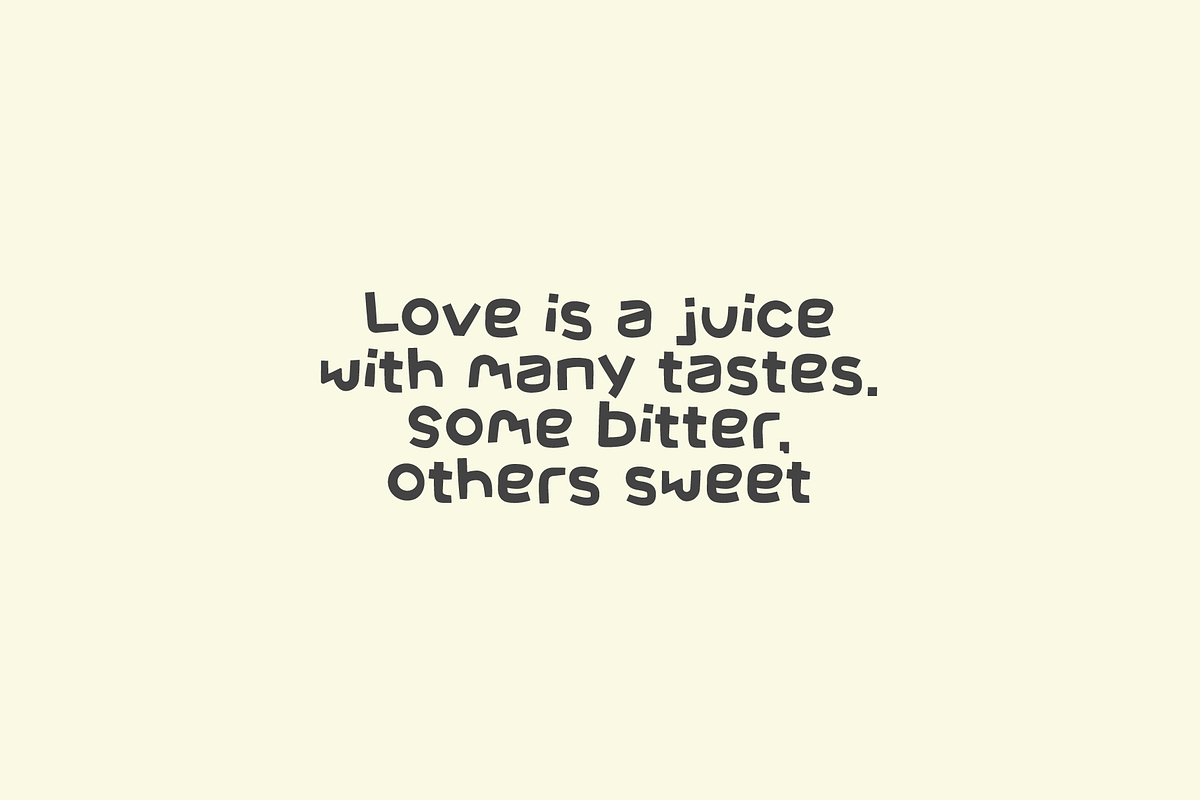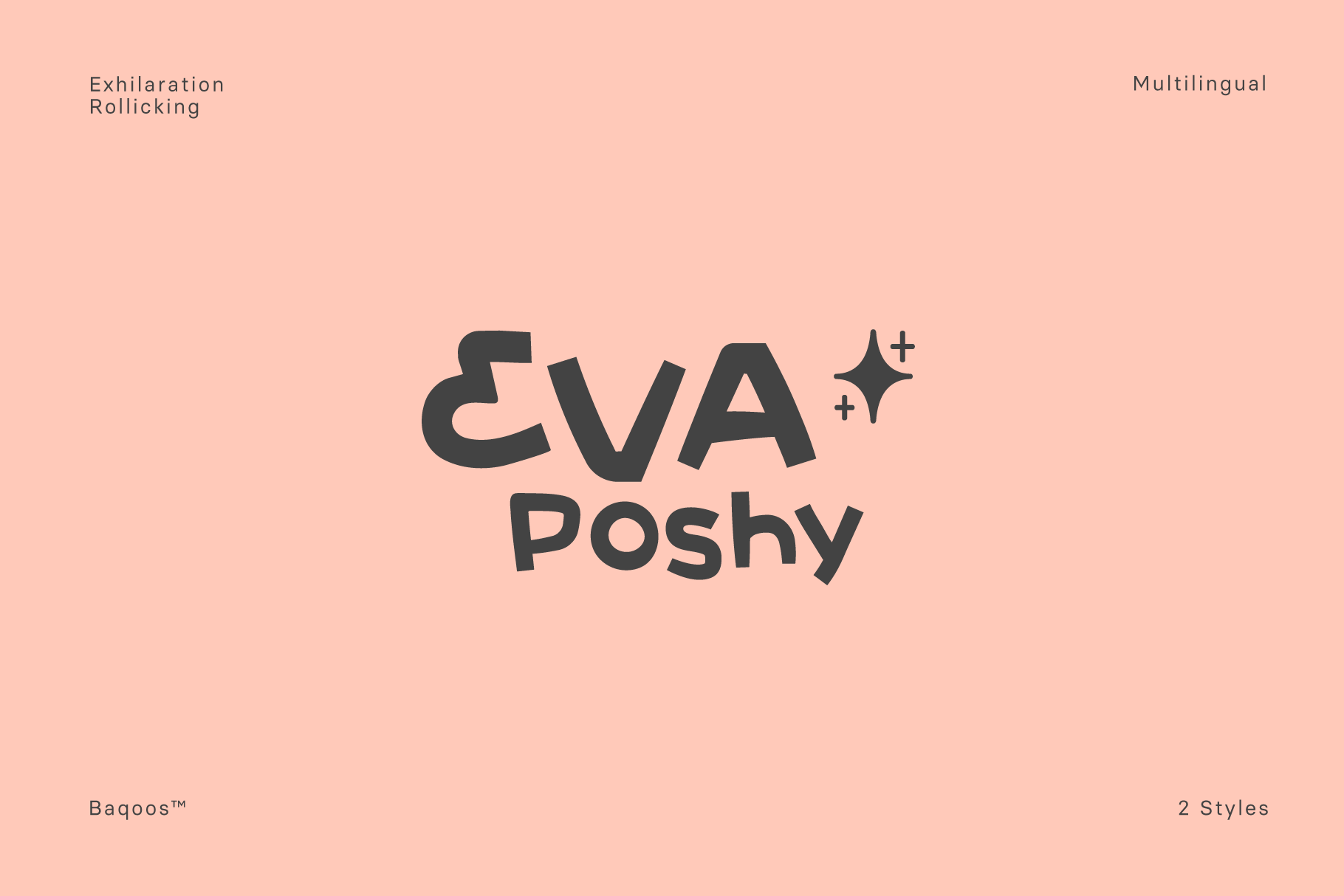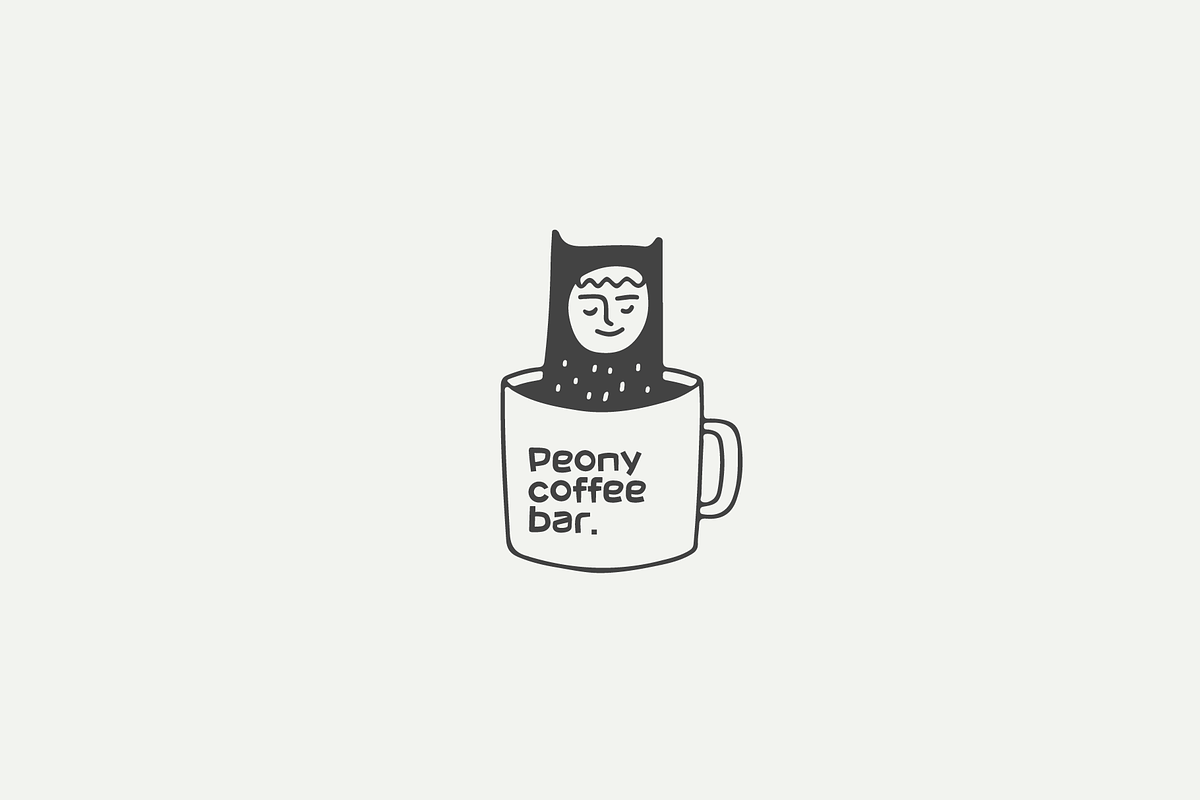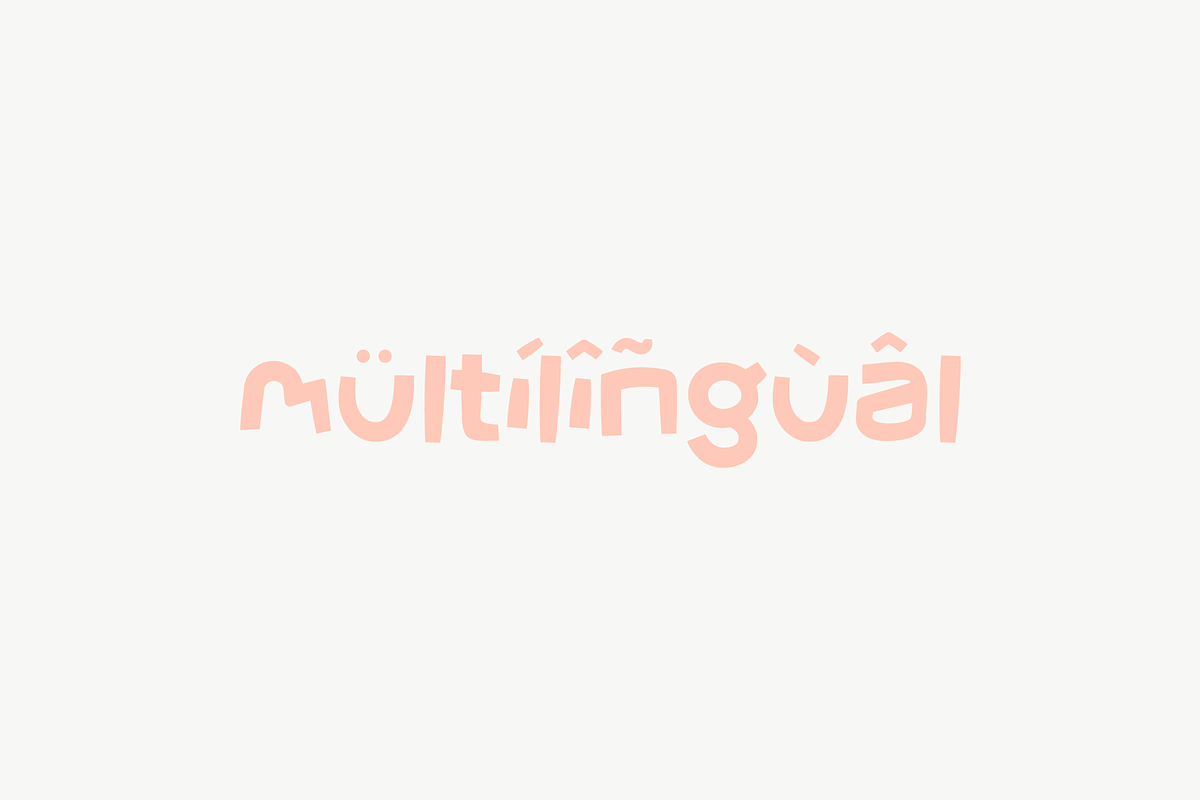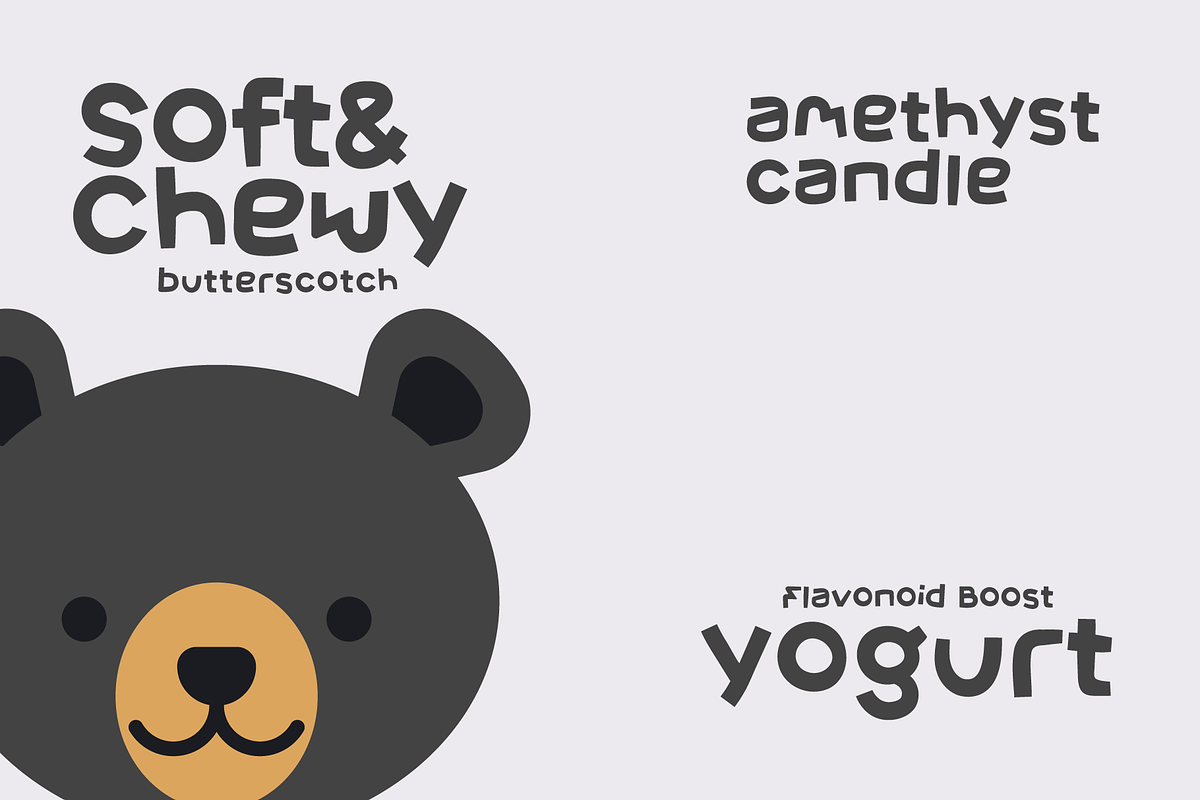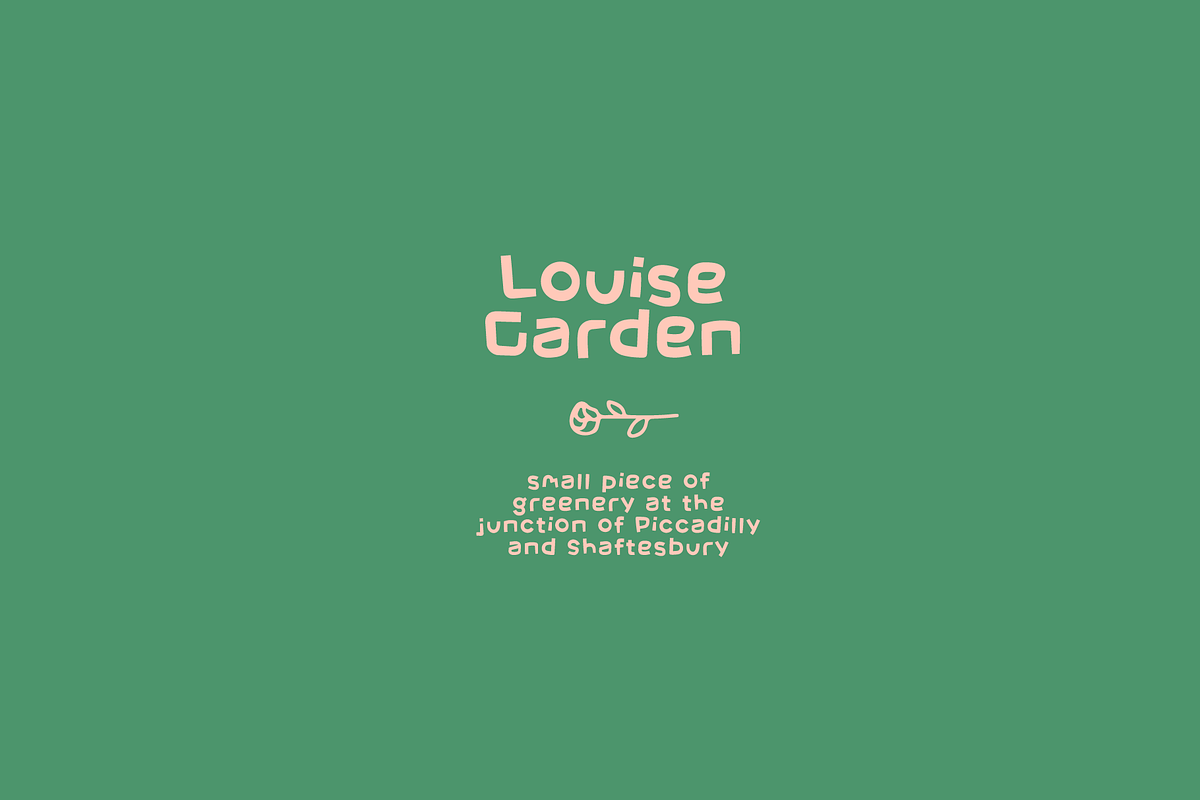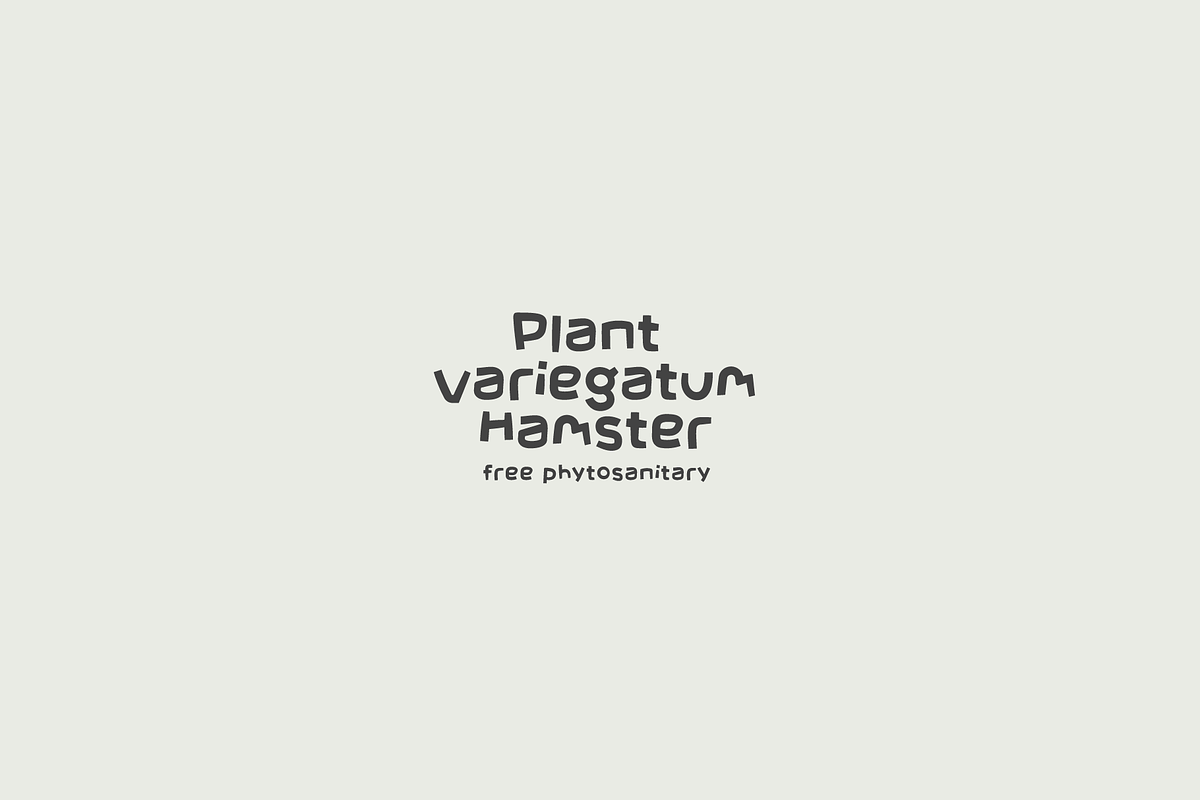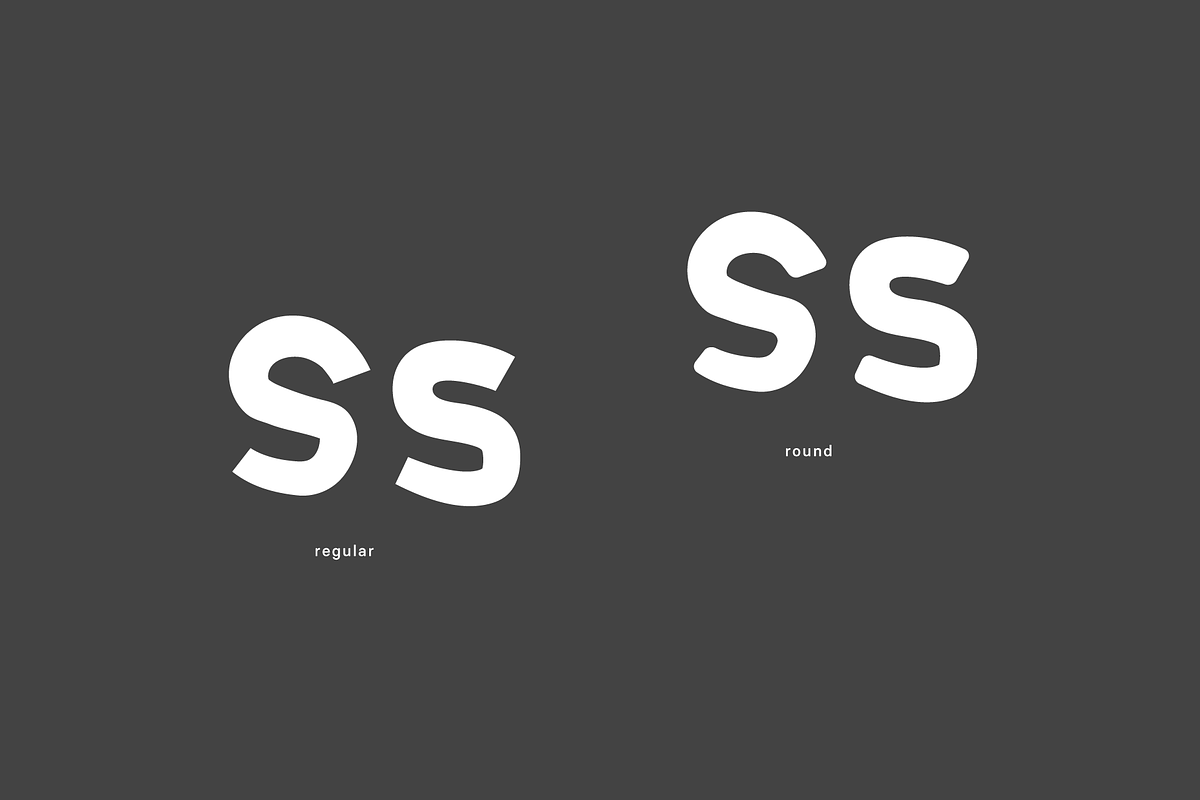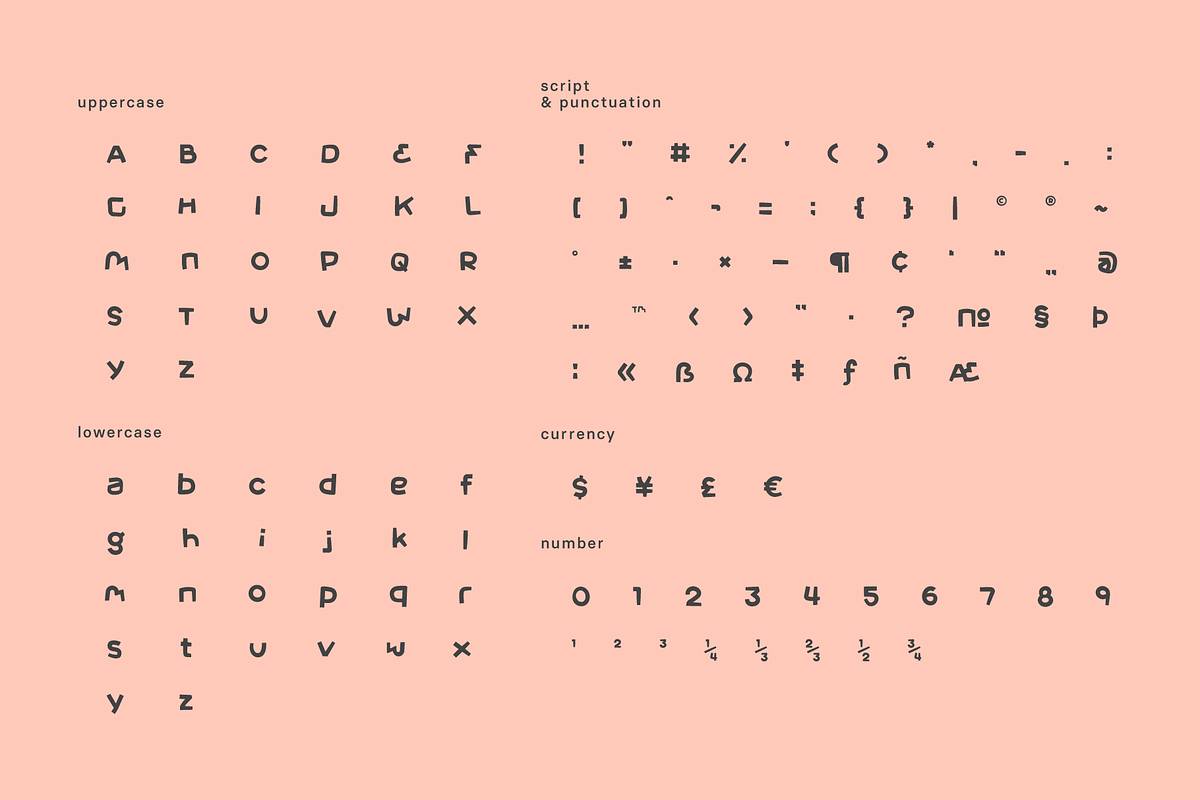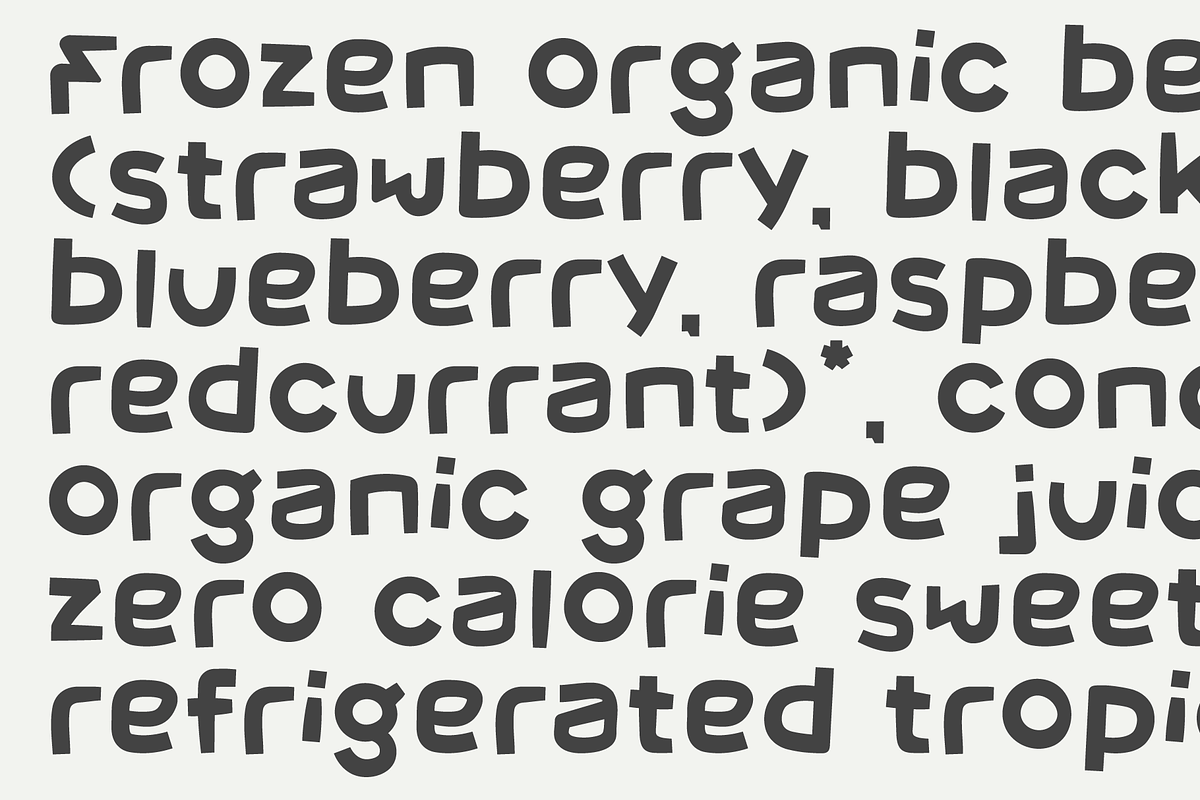
Eva Poshy Font
Eva Poshy is an exhilaration rollicking handwritten typeface apt for headline, editorial, branding, packaging, printed materials and typographic applications. 220+ glyphs including punctuation and numerical.